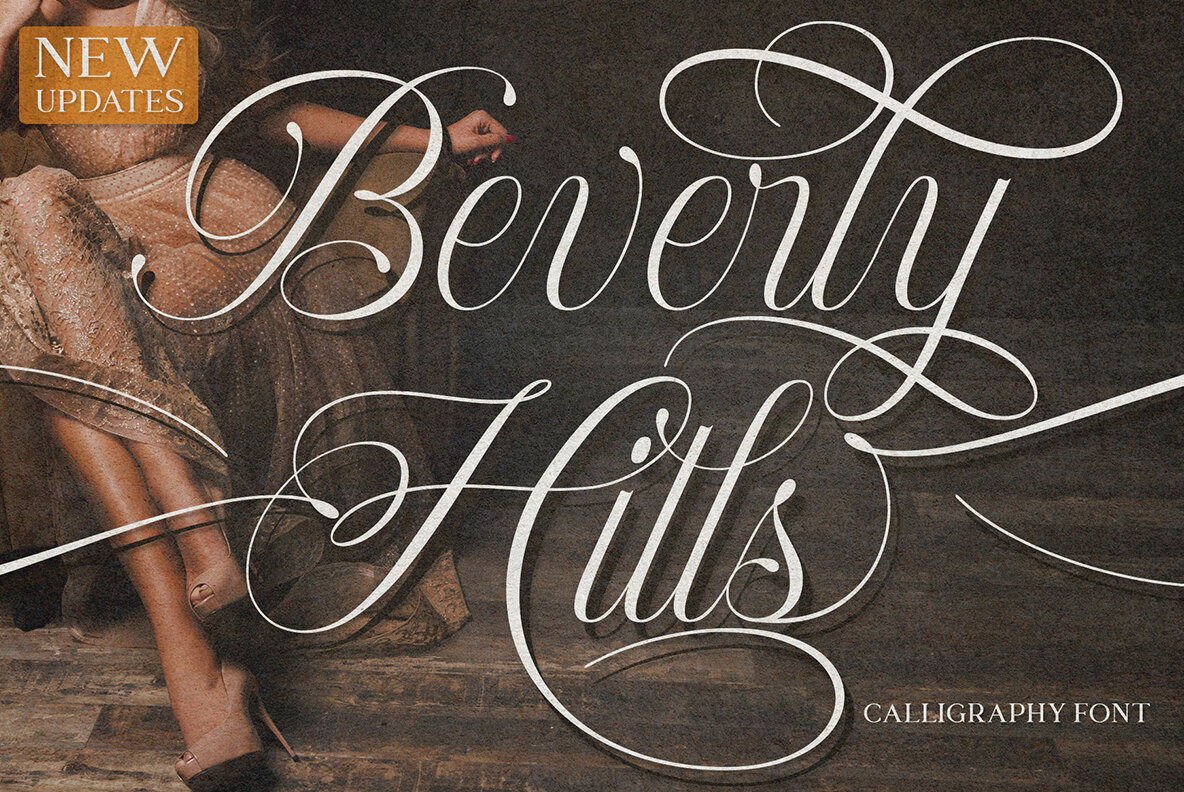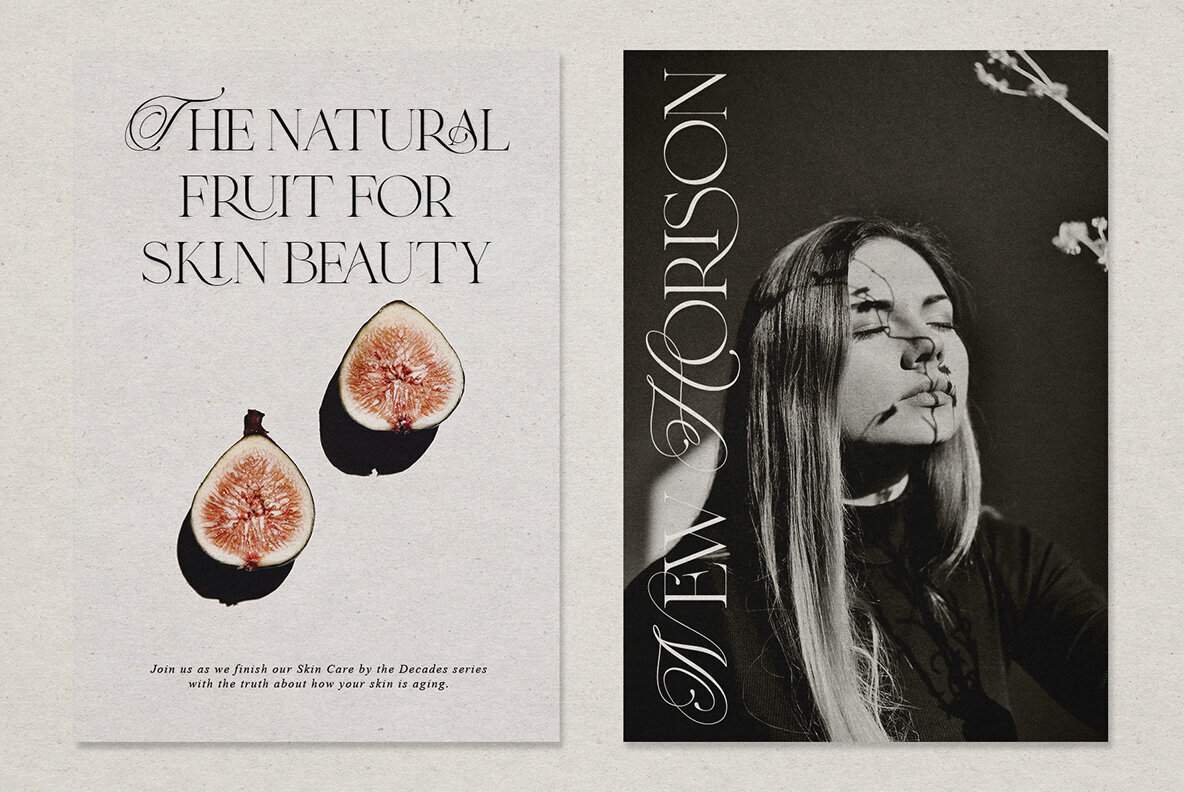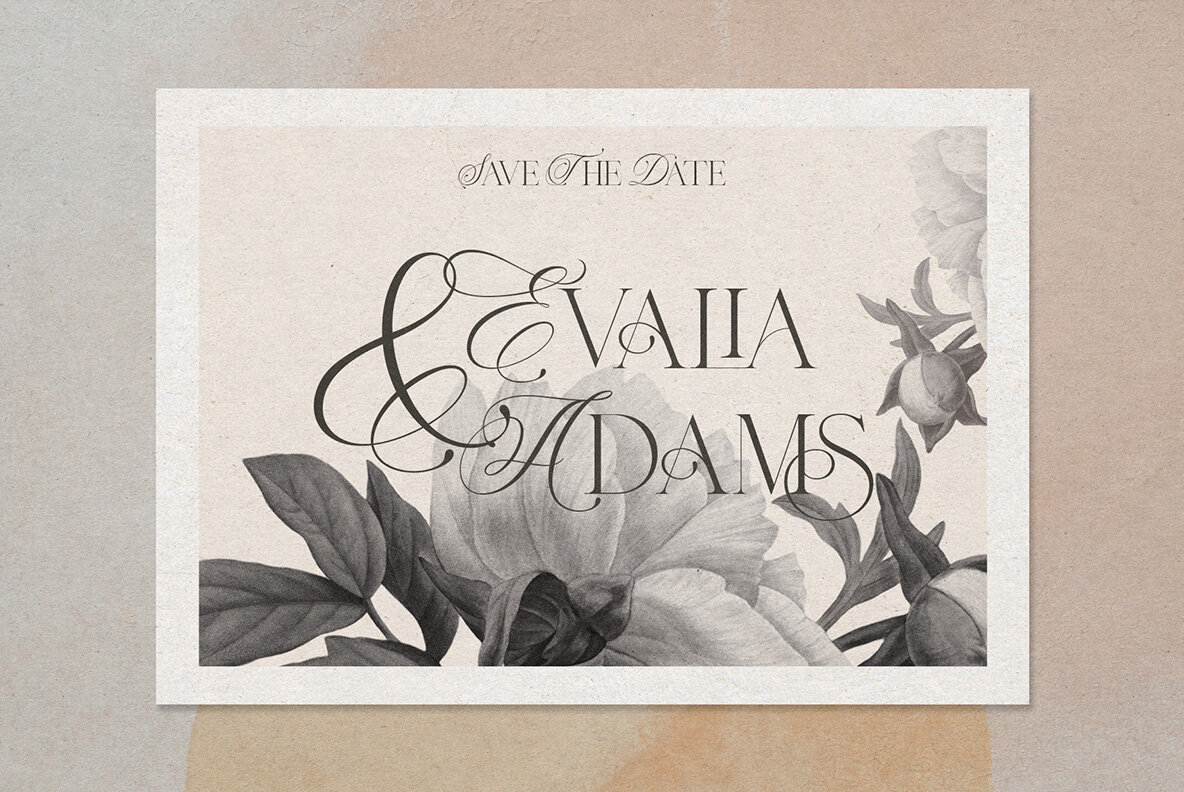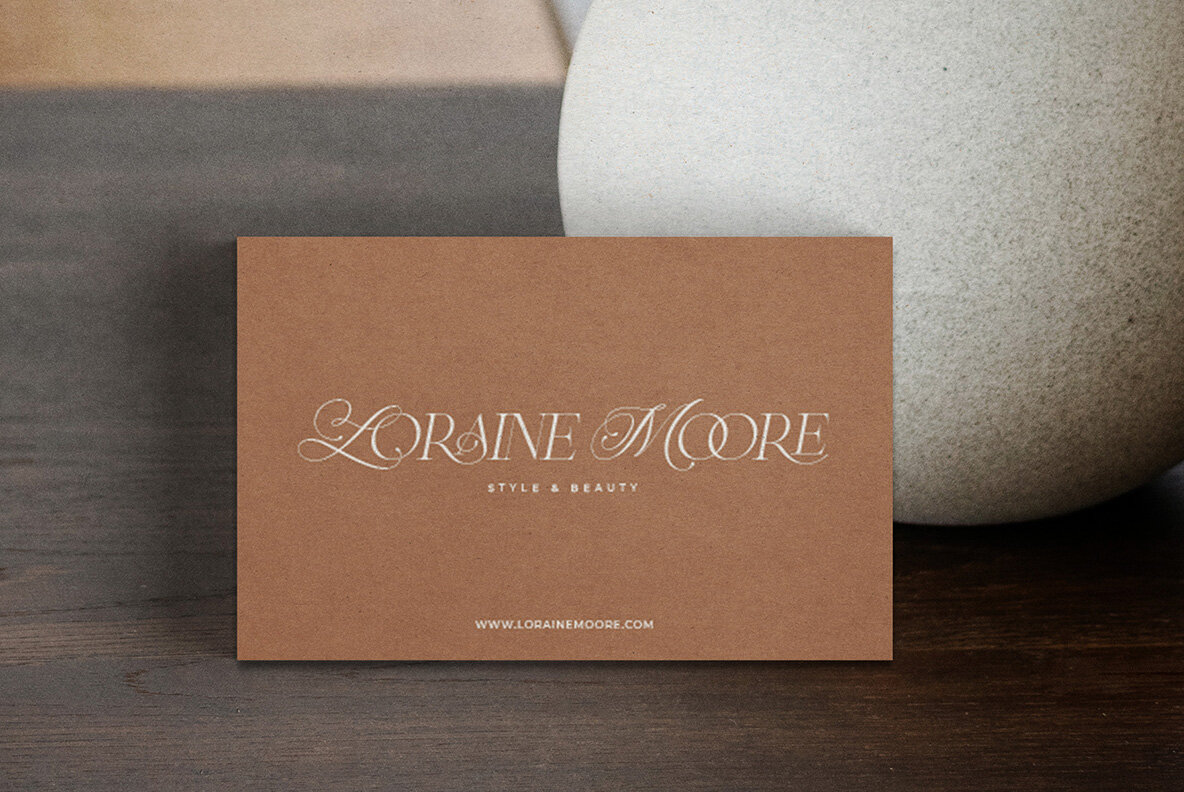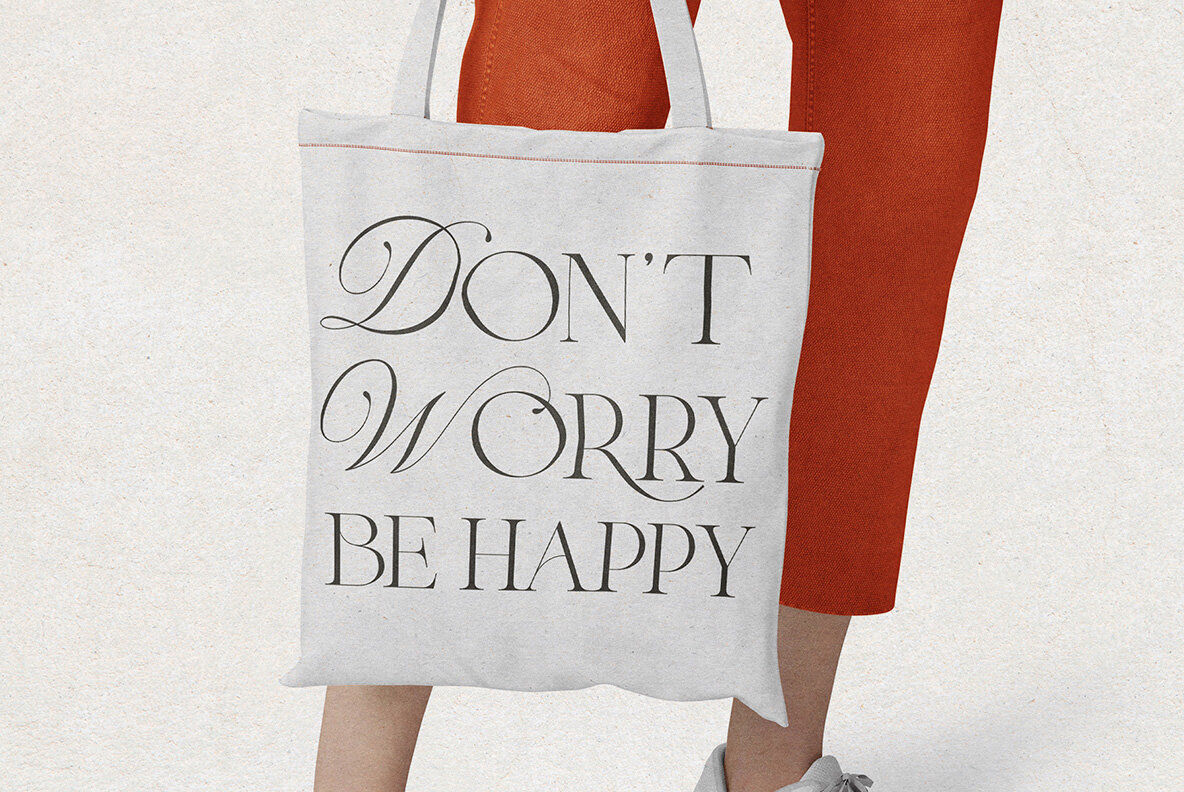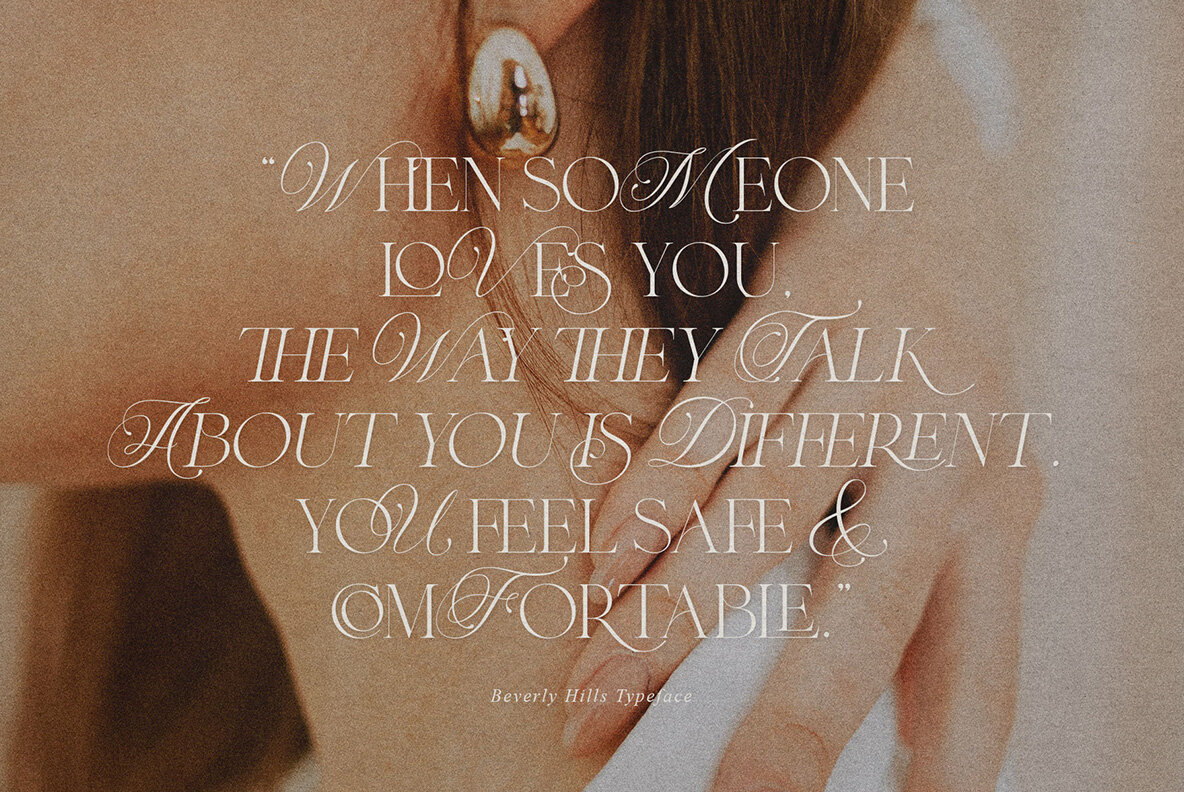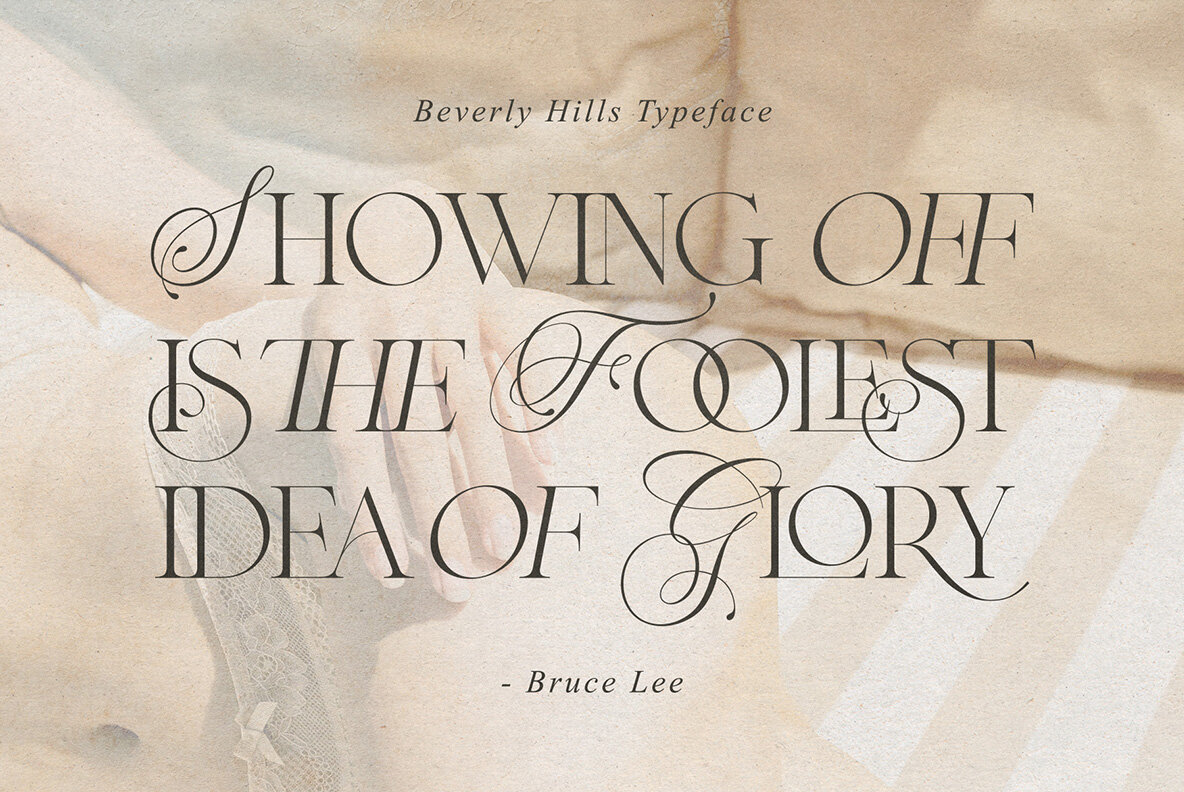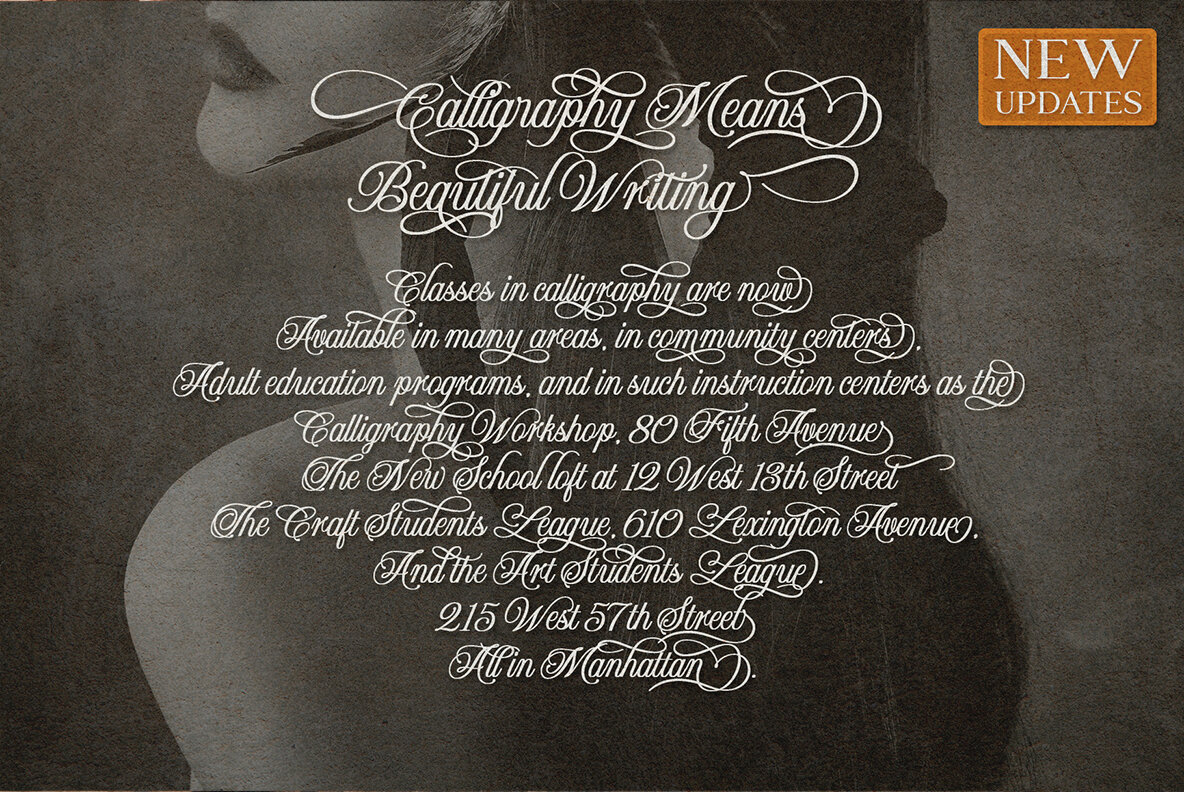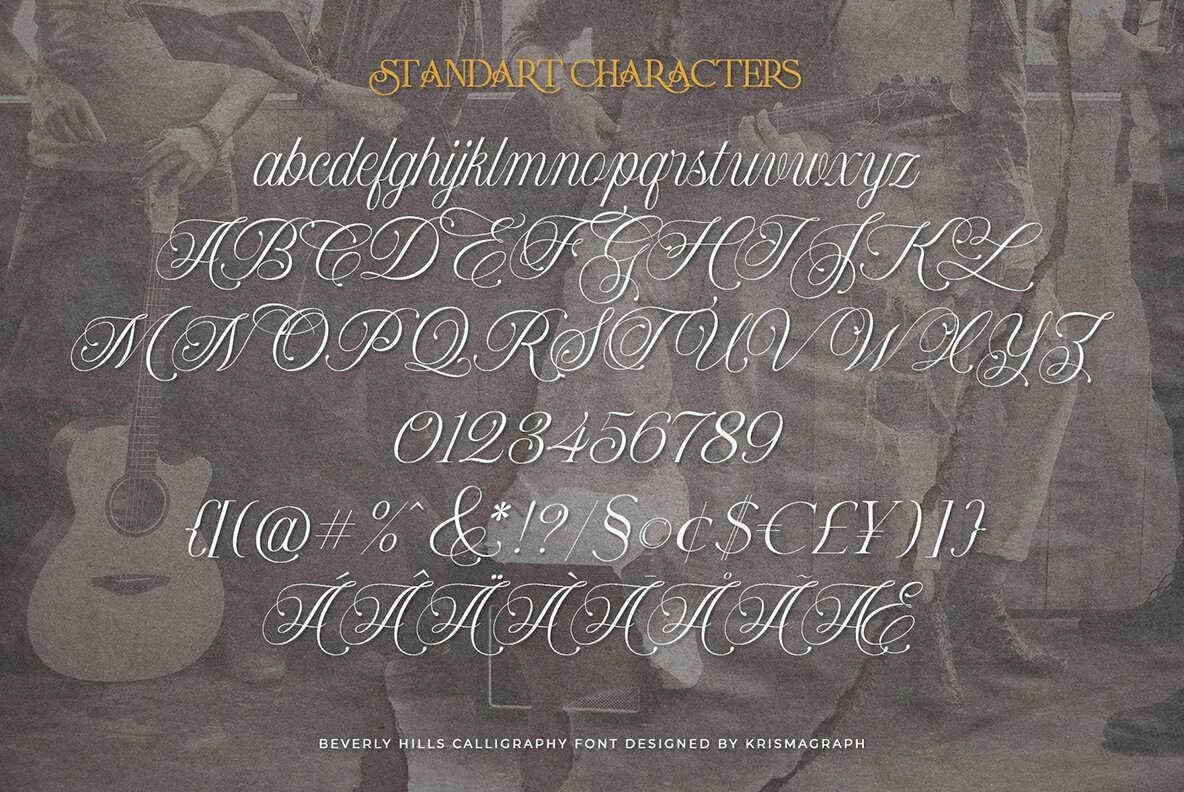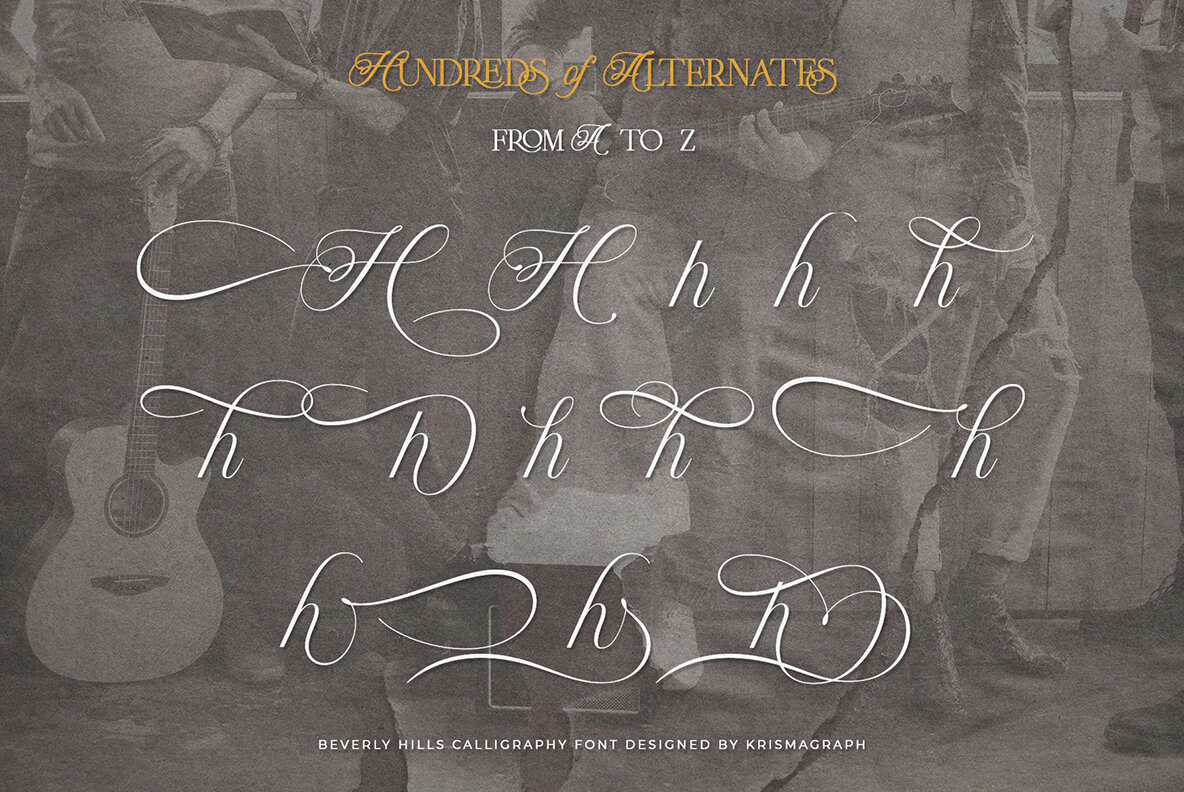
Beverly Hills Font
Beverly Hills typeface is a beautiful and inspiring mix of classic calligraphy and modern serif with 56 unique ligatures. come with 3 versions regular, italic & calligraphy. Beverly Hills is made mainly for headlines, titles, and other short texts and is well-suited for advertising, vintage mood board, branding, logotypes, packaging, titles, editorial design, modern logos, websites, social media quotes, wedding branding, modern and vintage design. Accessible in the Adobe Illustrator, Adobe Photoshop, Coreldraw, even work on Microsoft Word. PUA Encoded Characters – Fully accessible without additional design software. Fonts include multilingual support.